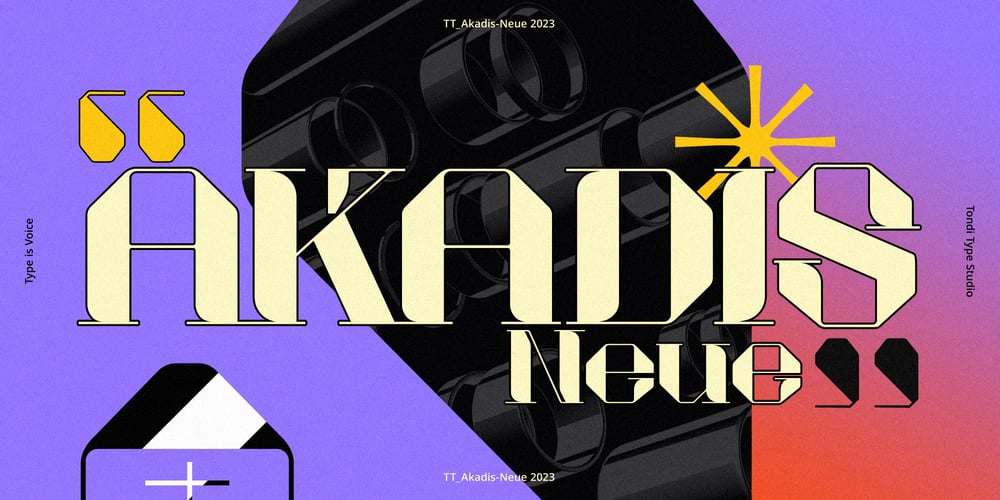
Akadis Neue Font Family was designed by Fhumulani Nemulodi and published by Tondi Type Studio. Akadis Neue contains 2 styles and family package options. Akadis Neue fuses the elegance of a serif with the boldness of a sans serif. With its high contrast stems and modern style, it’s ideal for designers looking for a unique, refined typeface. The main characteristic of Akadis are it’s rounded rectangular bowls and counters which put it in the middle ground between and industrial style like brutalism and more organically styled sans serif, pure contemporary bliss. Whether for headlines or branding, Akadis Neue’s blend of classic and modern makes it a standout choice. Akadis Neue features refined letterforms and expanded language support for 88+ languages, perfect for a global audience.2 Styles: Akadis Neue Regular Akadis Neue Bespoke Packed with OpenType Features: Ligatures Standard numerals Fractions, numerators & denominators Old-style figures 14 Open Type features